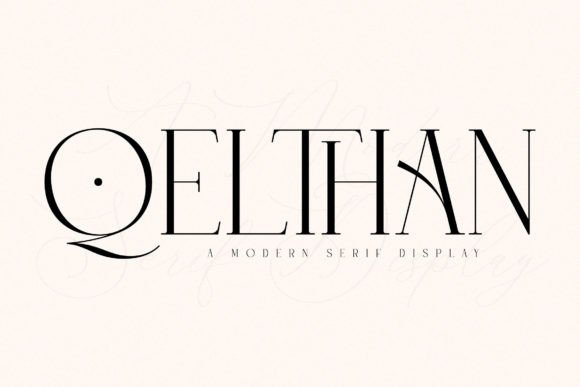
Behold, Qelthan Font, a captivating serif typeface that will transform your designs into timeless masterpieces.
Qelthan is not just a font; it's an art form, meticulously crafted to evoke elegance and sophistication in every letterform. Its delicate serifs add a touch of refinement, while its modern structure ensures readability and versatility.
Indulge your senses in the beauty of Qelthan, a font specifically designed for fashion brands, book and movie titles, magazines, clothing designs, lettering, and more.
Immerse yourself in a world of luxury and glamour as Qelthan elevates your creations to new heights. Its timeless appeal will make your designs shine, leaving a lasting impression on your audience.
Qelthan is more than just a font; it's an experience. It's a journey through the realms of creativity and style, where your designs will come alive with a new sense of elegance and sophistication.
Dare to be different, dare to be bold, and let Qelthan Font become your secret weapon in the world of design.